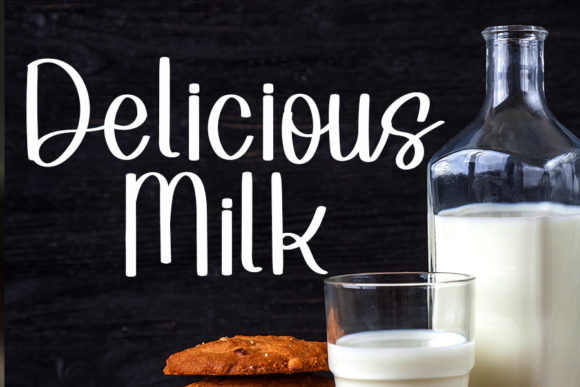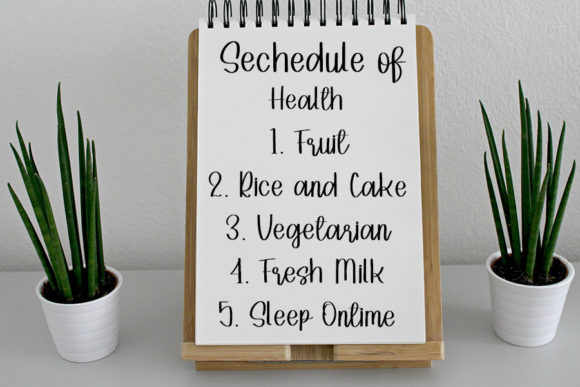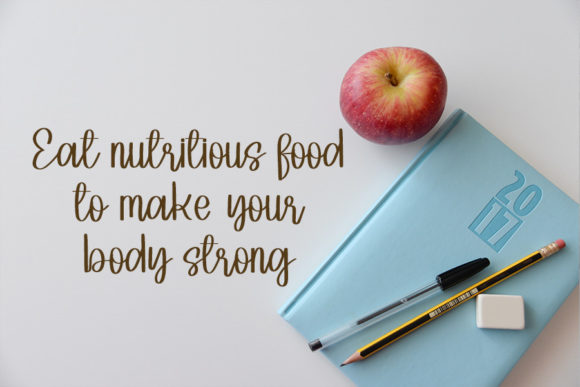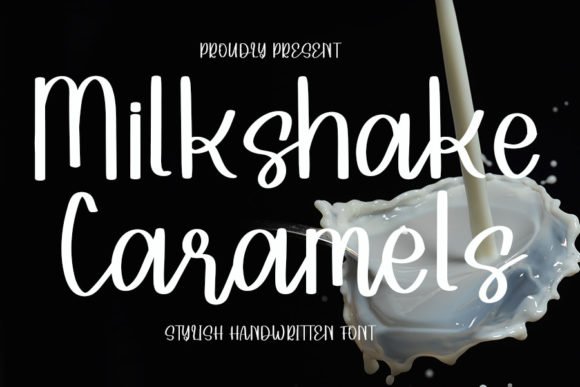
Introduction to Milkshake Caramels Font
Milkshake Caramels is a casual and friendly handwritten font.
Simple and easy to use, this font will be very beautiful if you mix it with your various craft designs .
Key Features of Milkshake Caramels Font